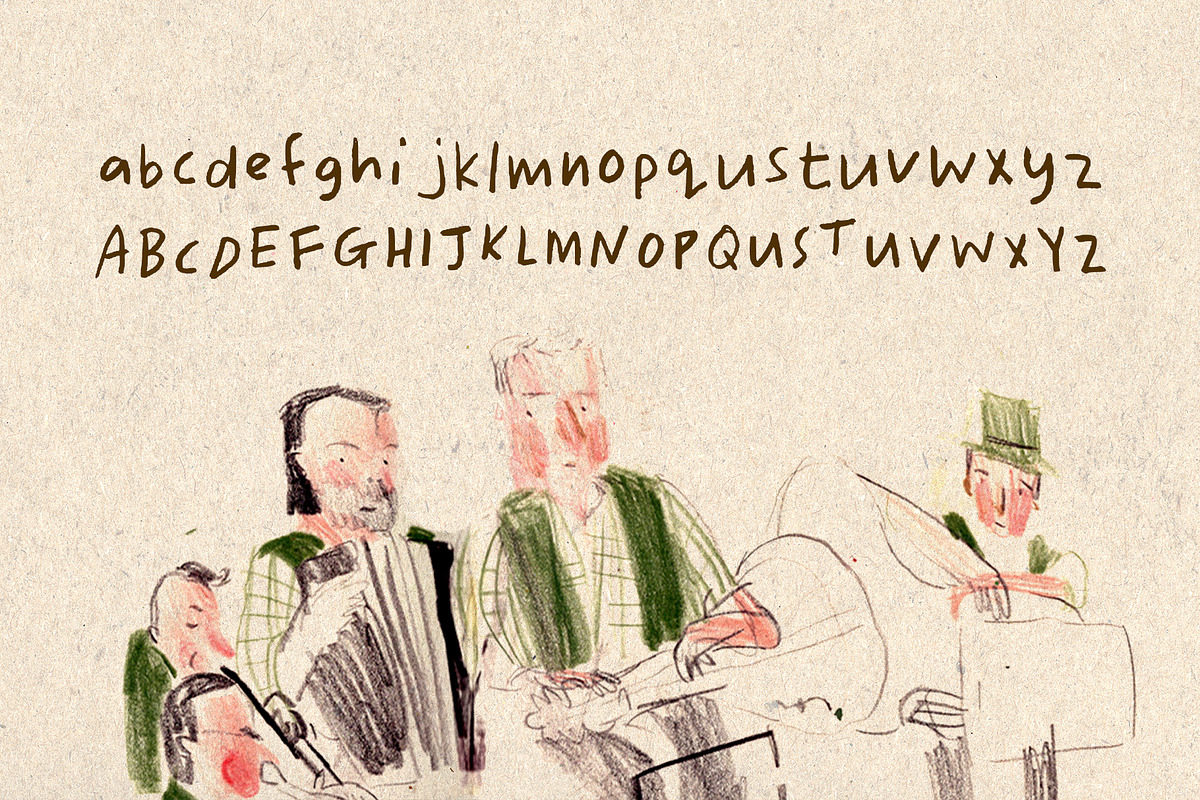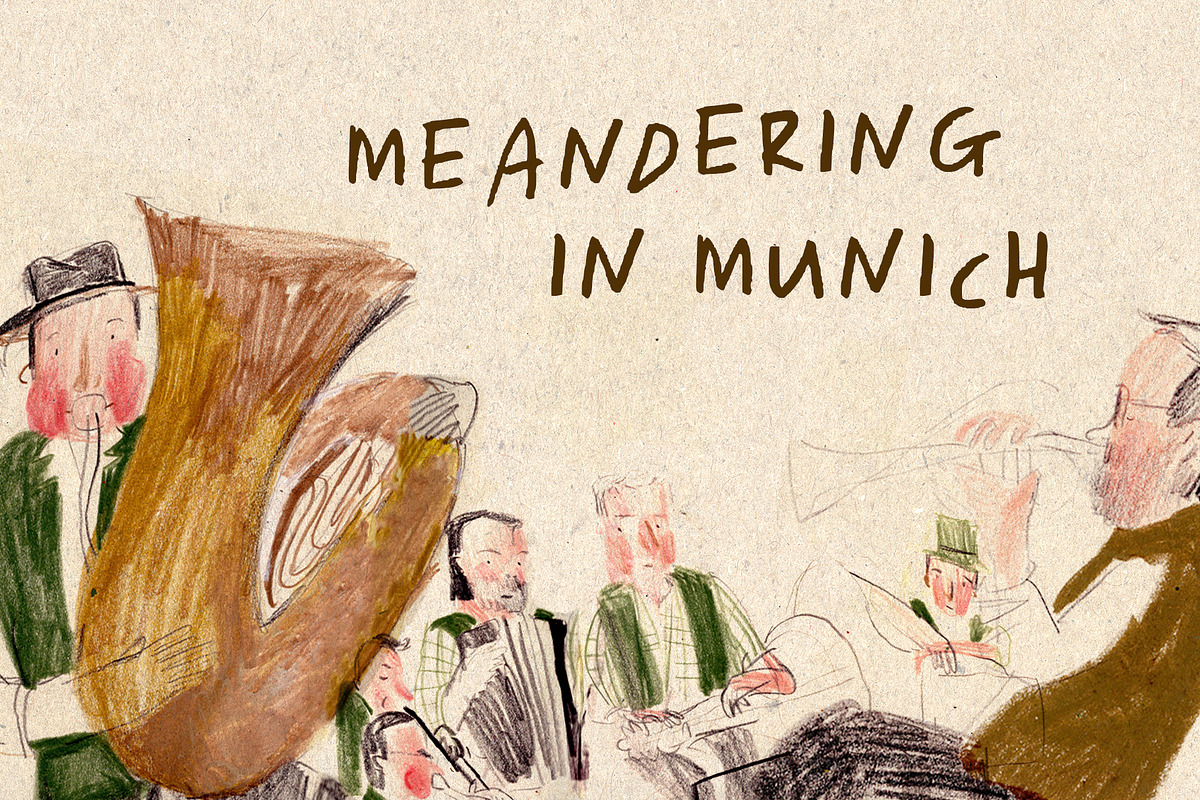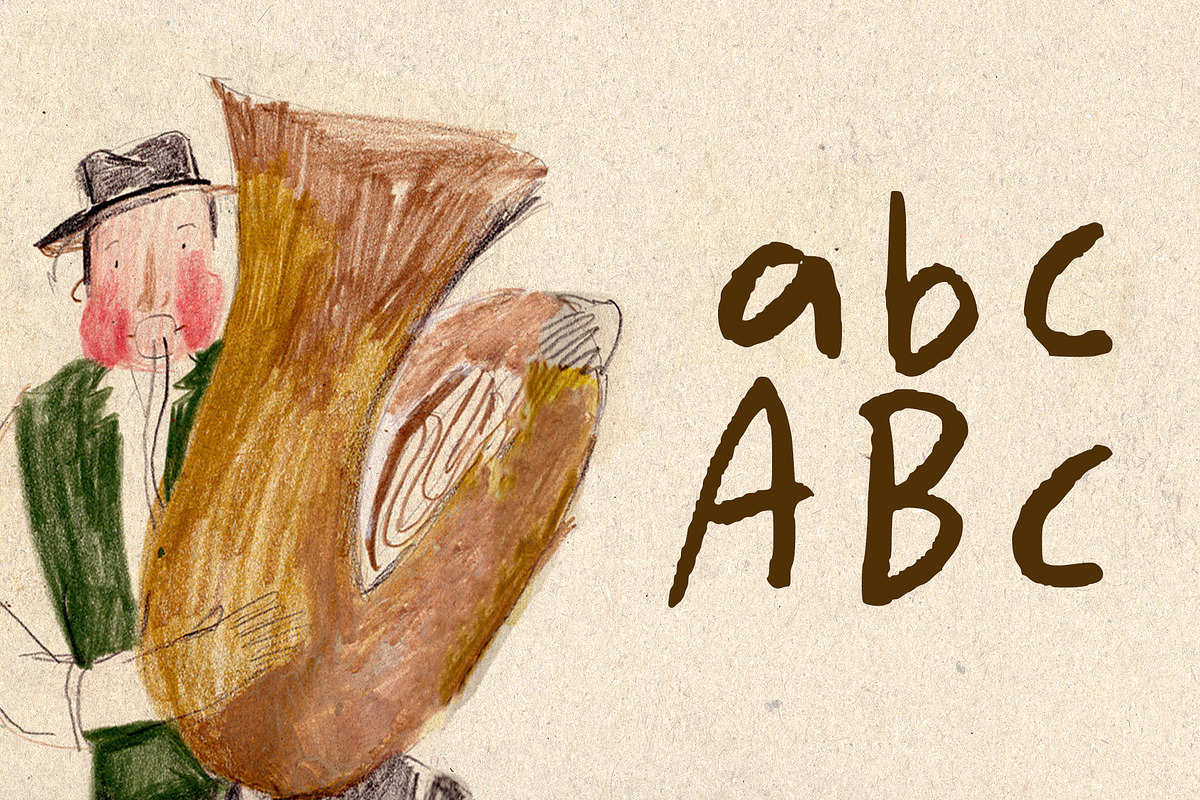
Meandering in Munich
"Meandering in Munich" is a regular handwritten font that seamlessly fuses personal charm with urban elegance. Inspired by the meandering streets of Munich, this versatile font brings a unique, handcrafted feel to your projects, from invitations to branding. With fluid strokes and graceful curves, it captures the spirit of exploration, making it ideal for a variety of creative endeavors. Infuse your designs with the warmth and authenticity of Meandering in Munich, a font that mirrors the charm of this vibrant city while maintaining a regular, easy-to-read style.